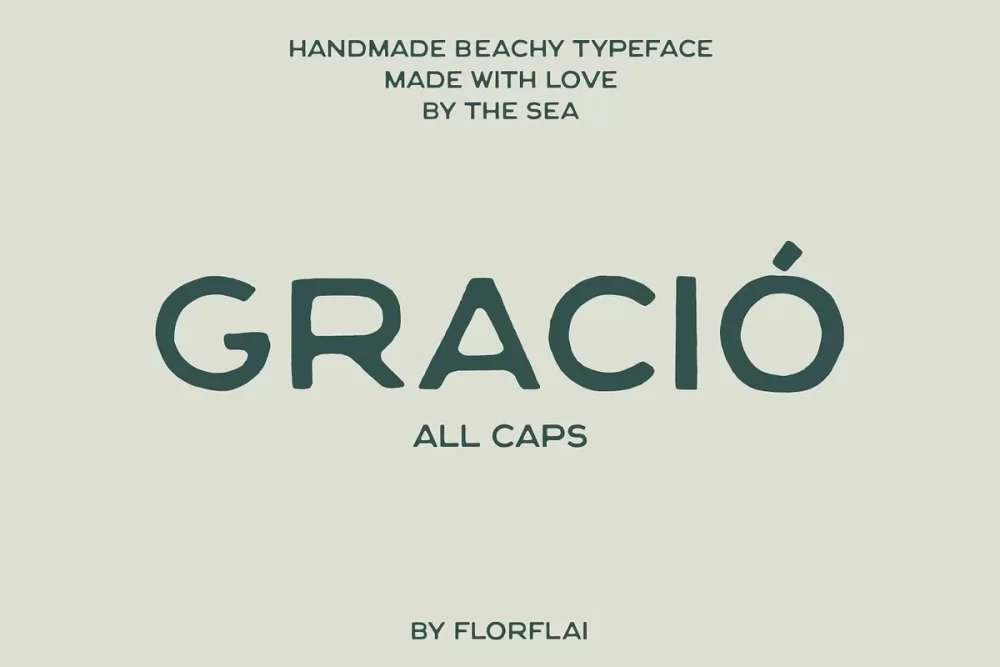
Gracio Font
Gracio is inspired by Cala Gració and the essence of coastal living with its handmade sans serif style, infused with the organic vibes of Ibiza’s seaside. Each character reflects the relaxed, carefree atmosphere of beachside creativity, reminiscent of lazy afternoons spent by the sea.
With its fluid strokes and natural charm, it is perfect for branding, social media graphics, or adding a touch of coastal elegance to any design project, this font embodies the effortless allure of island life.
Its irregular contours and artisanal feel lend a unique character to every word, inviting viewers to immerse themselves in the tranquil beauty of Ibiza’s coastal landscape. Whether adorning a beachfront cafe menu or gracing the cover of a travel brochure, the font transforms text into a visual journey—an invitation to escape to the sunny Ibiza.